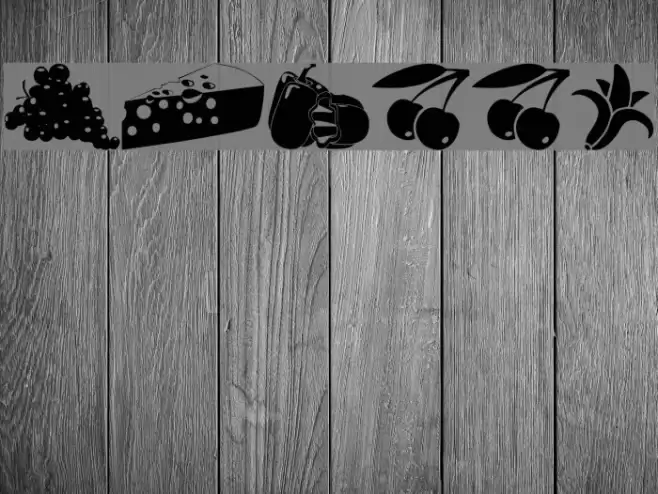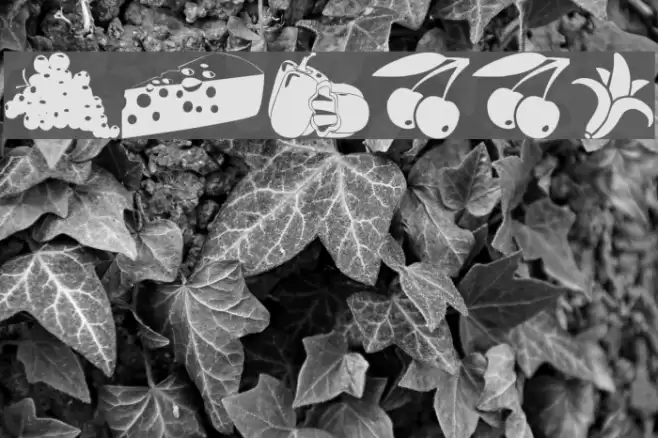
wmfood1 Font
wmfood1 Description
A decorative dingbat font featuring a variety of food-themed silhouettes, including fruits, vegetables, desserts, and other edible items, rendered in bold black shapes with clear outlines and minimal detail.
Food-themed decorative dingbat font with bold silhouettes from Dingbats fonts.
- Proposed Projects: Recipe books, restaurant menus, food blogs, culinary event posters, educational materials for children.
- Use Case: Icons, embellishments, section dividers, thematic graphics.